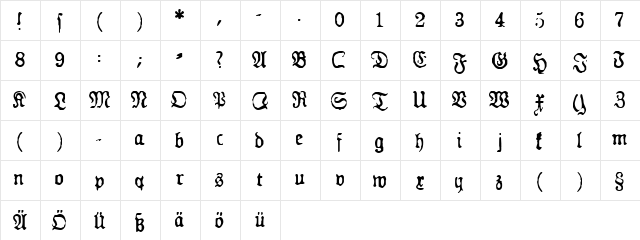
GF Gesetz Normal
Design Context for GF Gesetz Typeface
GF Gesetz takes a measured approach to typography — its balanced proportions and neutral character make it a reliable workhorse for both digital and print work.